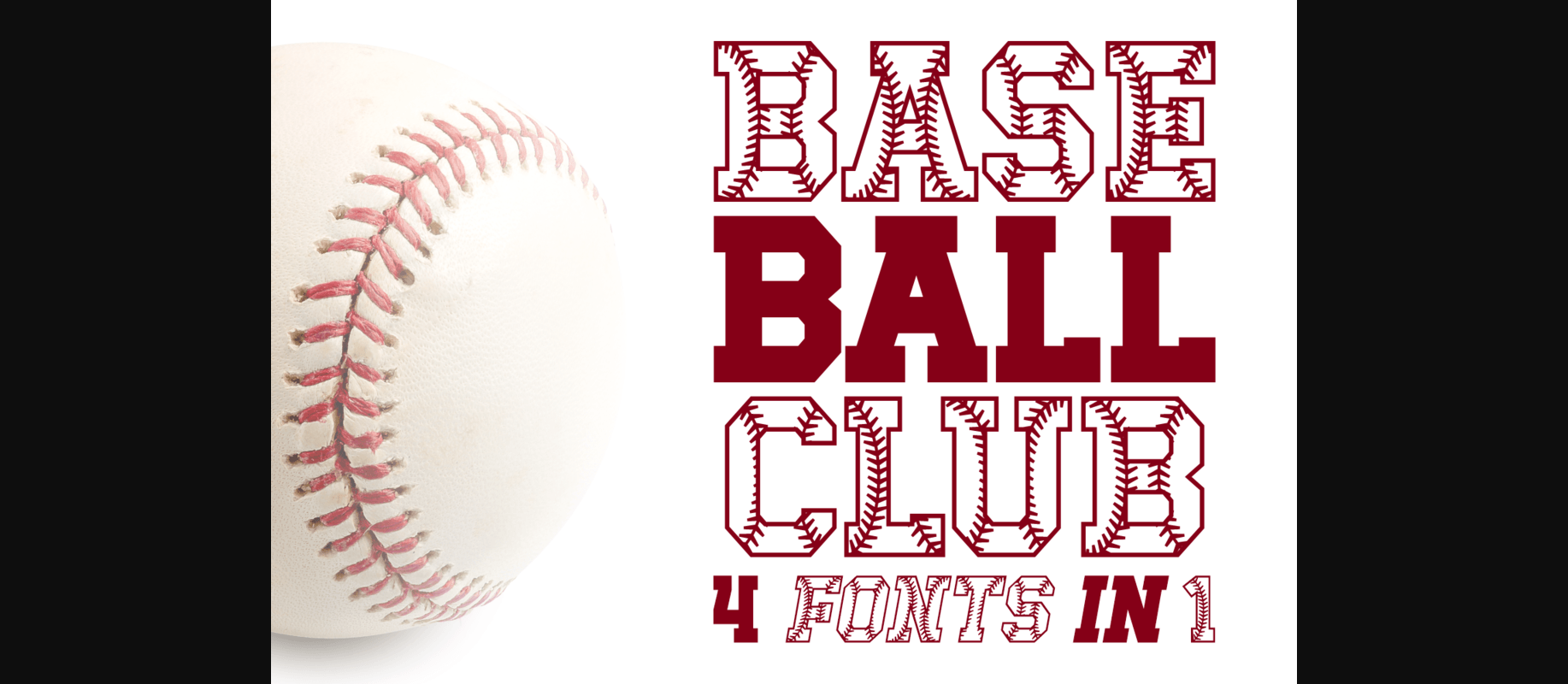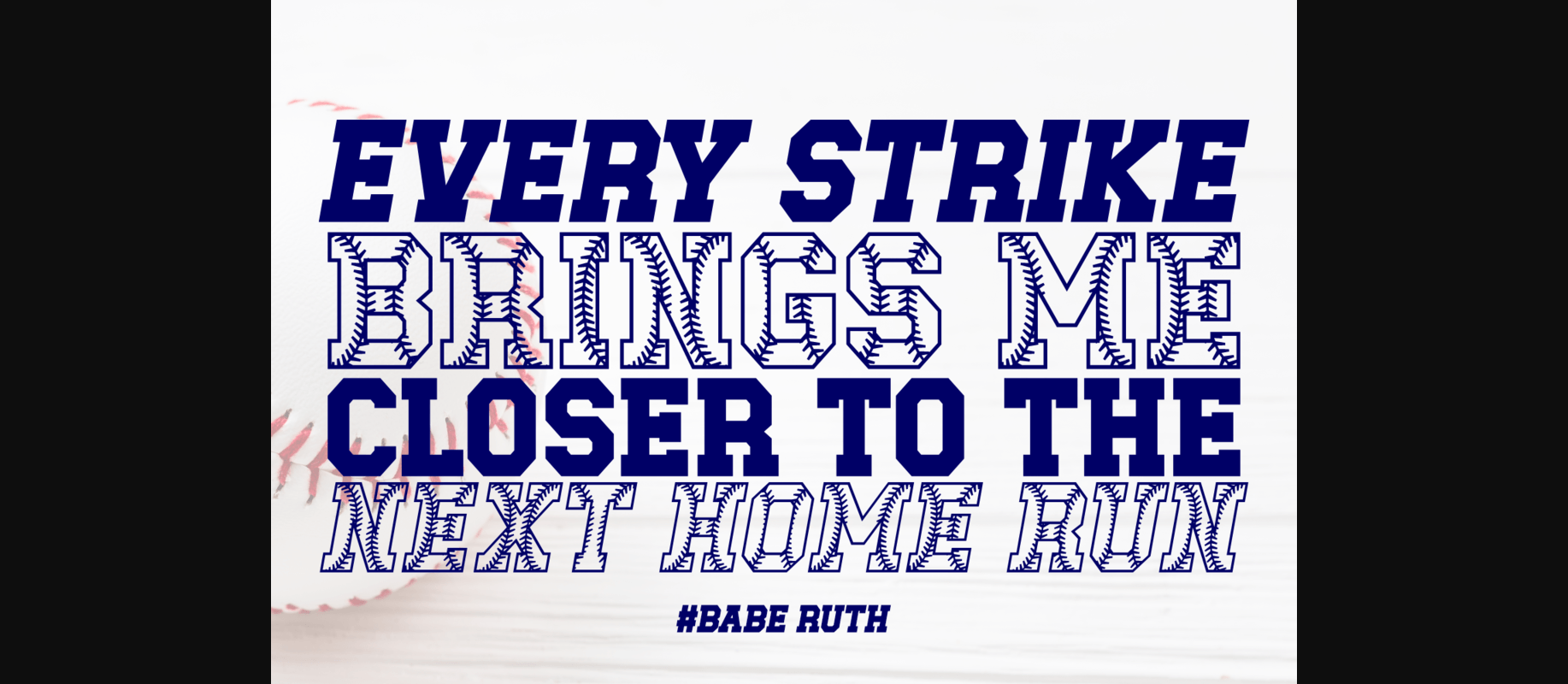
About Baseball Club Font
Baseball Club is a decorative font family that includes four versions. Ideal for baseball-themed projects, these characters will add some charm to your designs! Use them for baseball uniforms and shirts, competition posters, flyers, banners, web graphics, and many more.